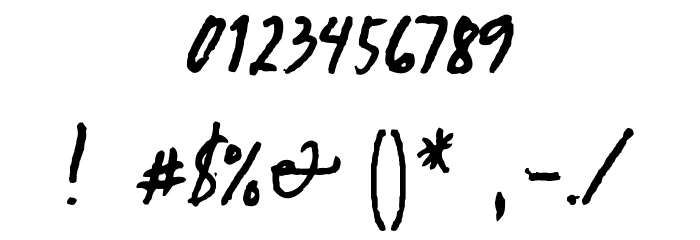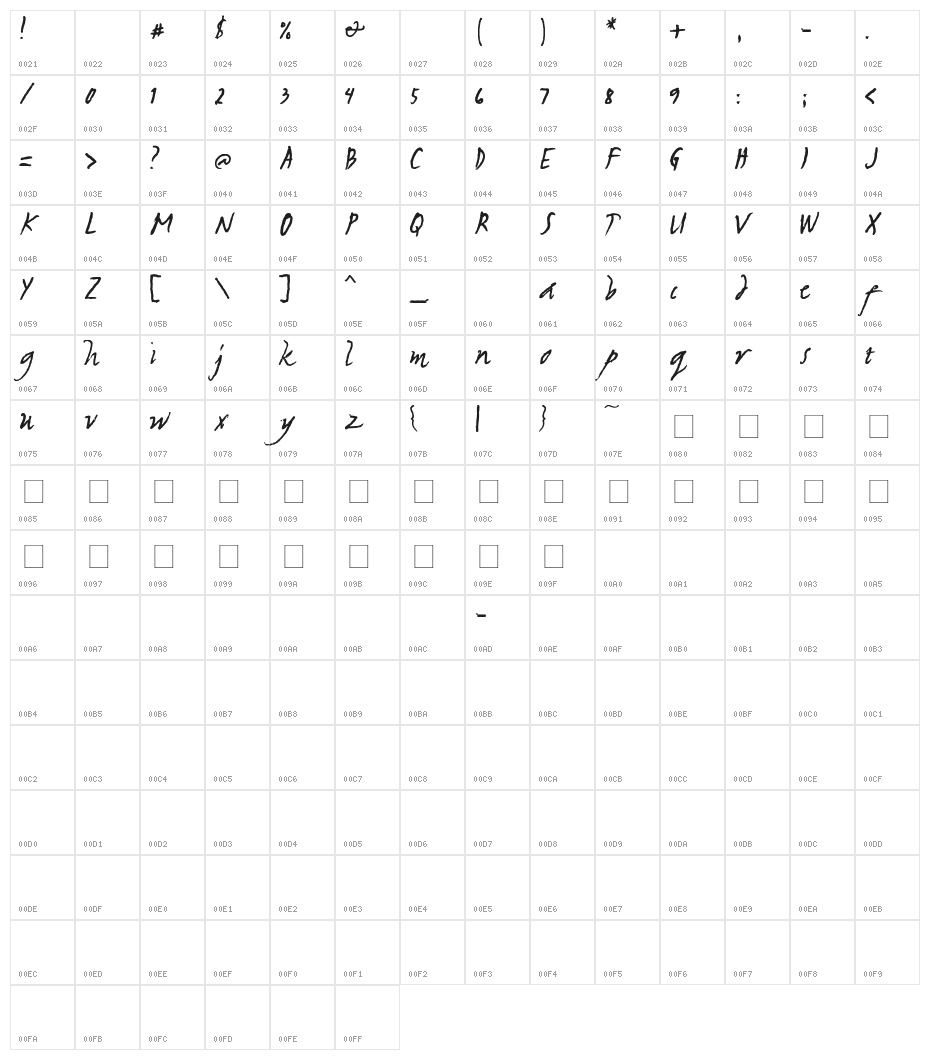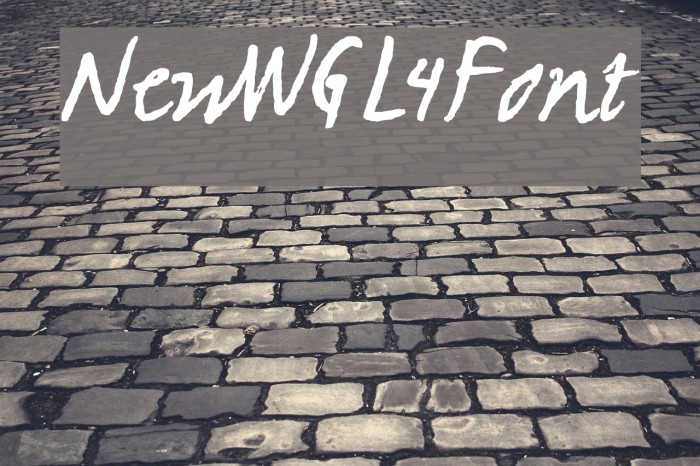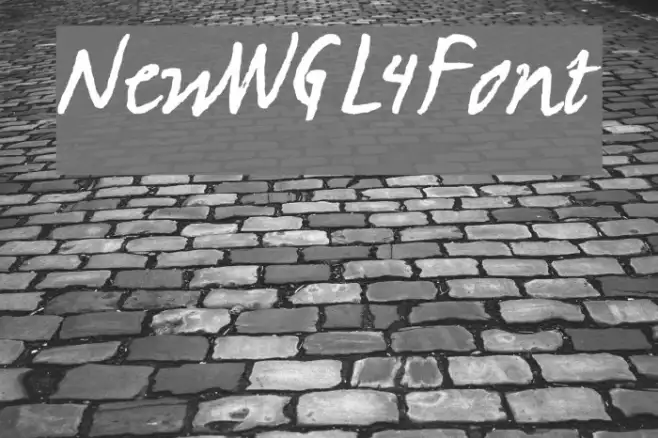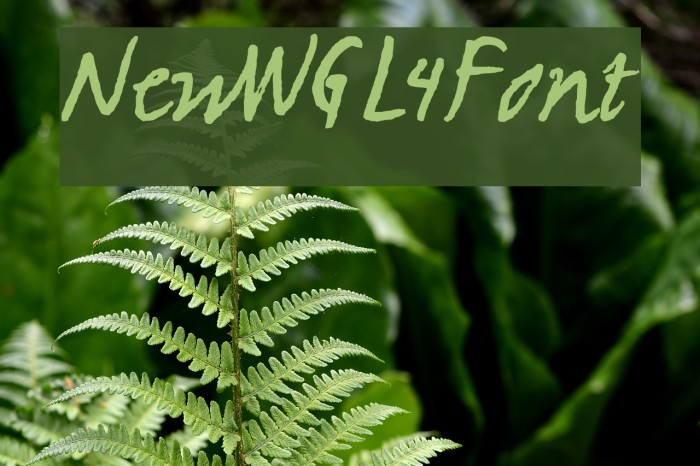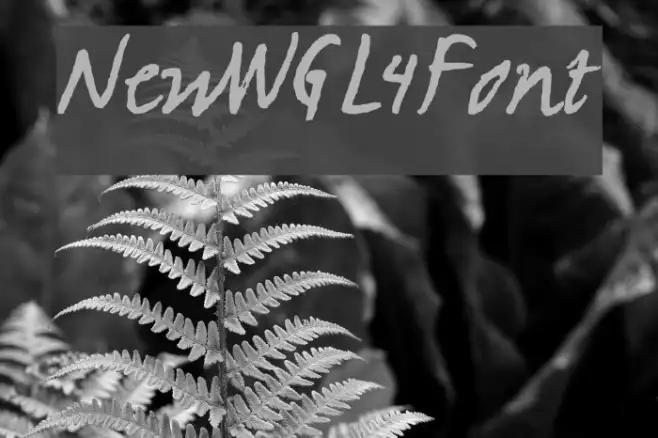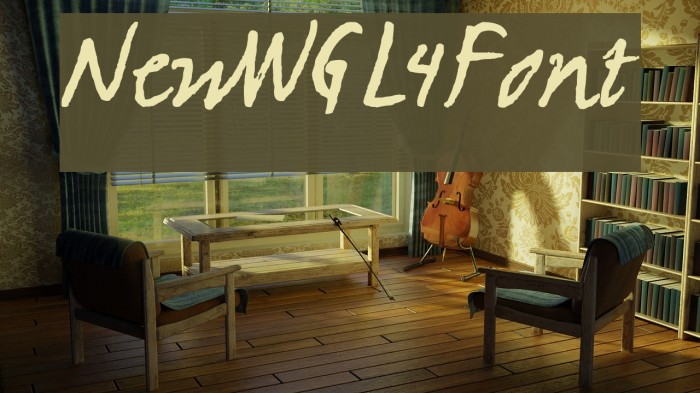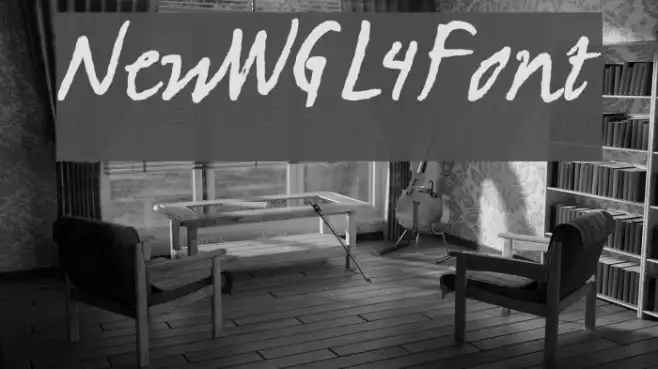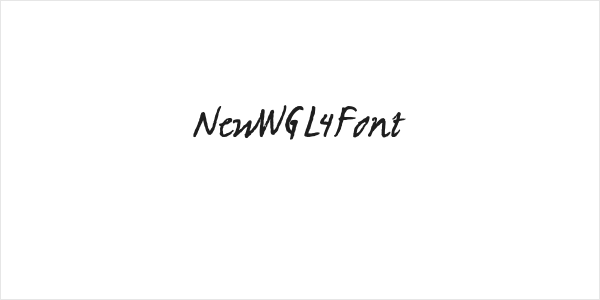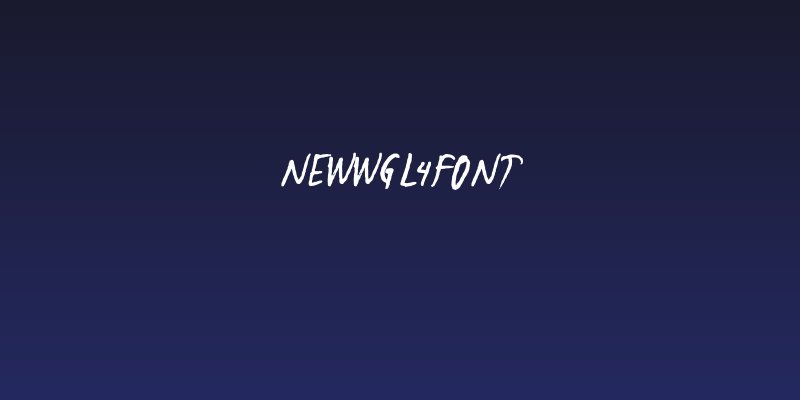
NewWGL4Font Font
NewWGL4Font Description
This font exhibits a dynamic and expressive handwritten style, characterized by its fluid and irregular strokes. The uppercase letters are bold and slightly slanted, giving a sense of movement and energy. The lowercase letters maintain a consistent flow, with some letters extending below the baseline, adding to the font's organic feel. The numerals are clear and legible, while the special characters retain the same lively and informal aesthetic. Overall, this font conveys a sense of spontaneity and creativity, making it suitable for projects that require a personal touch.
| Proposed Projects | Ideal for greeting cards, personal branding, artistic projects, and informal invitations. |